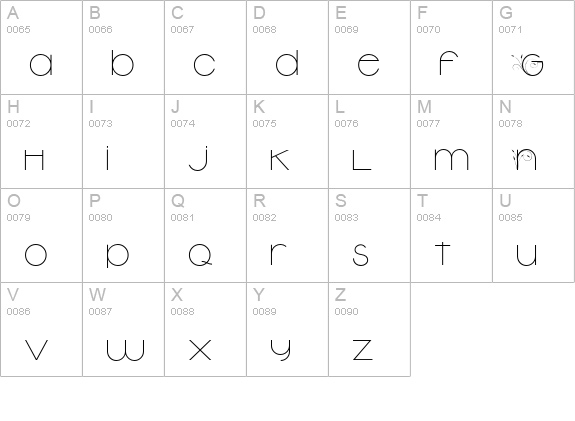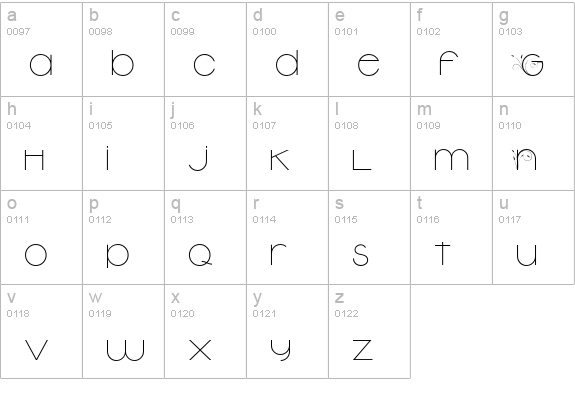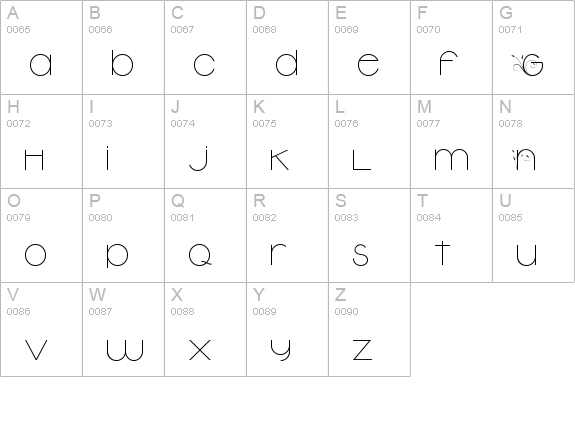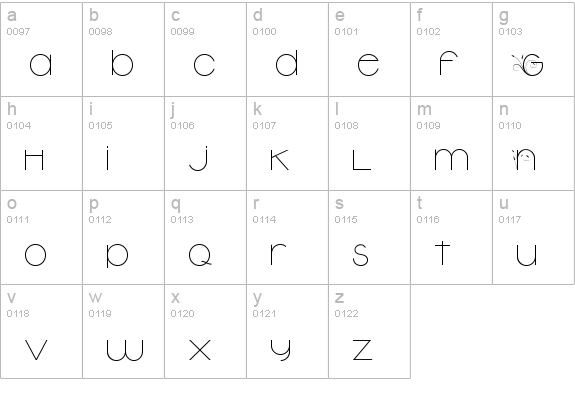
New Garden Light Font Details
New Garden Light is a refined, elegant variant in the New typeface family \xE2\x80\x94 well suited to elegant body text, refined sub-headings, and luxury branding.
Introducing the captivating New Garden Light font, a delightful typeface that will instantly elevate your design projects to new heights of elegance and sophistication. This beautiful font exudes a sense of grace and charm, making it the perfect choice for a wide range of creative endeavors. With its delicate lines and refined curves, New Garden Light effortlessly merges classic aesthetics with a modern twist. Each letter is meticulously crafted, allowing for a seamless flow and readability that is both striking and timeless. Whether it's used for a logo, branding, invitations, or any other design application, this font will undoubtedly leave a lasting impression. One of the most remarkable aspects of New Garden Light is that it is available for free download exclusively at FontsMarket.com. That's right, this remarkable font can be yours at no cost, allowing you to embark on your creative journey without any financial constraints. FontsMarket.com is renowned for its vast collection of high-quality fonts, ensuring that you have access to the best typographic resources available. The versatility of New Garden Light knows no bounds. Its elegant and refined nature pairs perfectly with both formal and informal designs, making it a truly versatile typeface that can adapt to any project. From wedding invitations to fashion editorials, this font will imbue your work with a touch of sophistication and style that is unparalleled. The meticulous attention to detail and the seamless legibility of New Garden Light make it an excellent choice for both print and digital applications. Whether you are designing for web or print, this font will ensure that your message is communicated with clarity and finesse. So why wait? Elevate your design projects to new heights with the captivating New Garden Light font, freely available for download at FontsMarket.com. Unlock a world of creative possibilities and let this exquisite typeface be the key that unlocks your design's true potential.